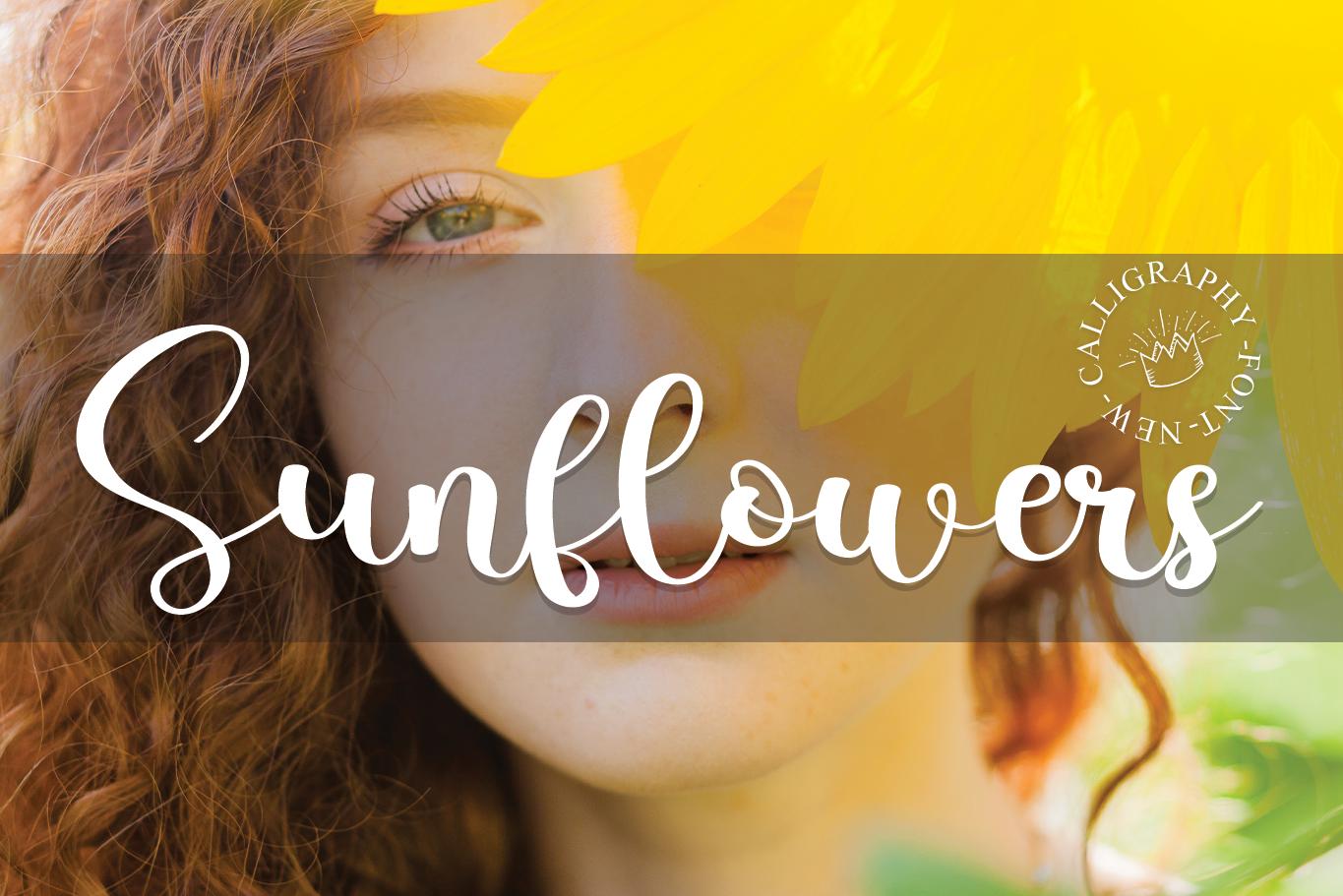
Sunflowers Font Description
Sunflowers is a cute handwritten font, carefully handcrafted to become a true favorite. It maintains its classy calligraphic influences while feeling contemporary and fresh. This versatility will appeal to a wide range of crafty ideas, from letterheads and titles, to stationery.